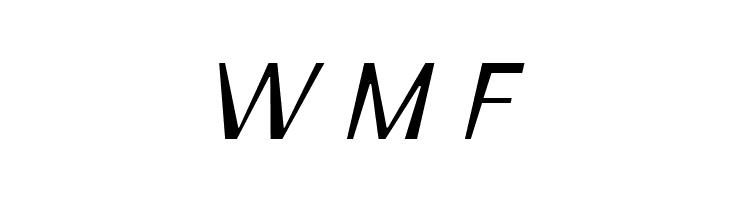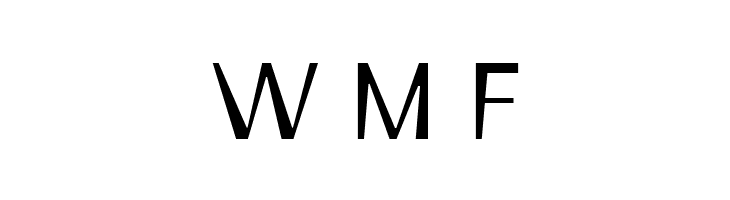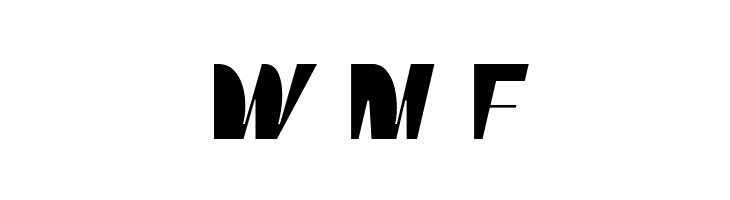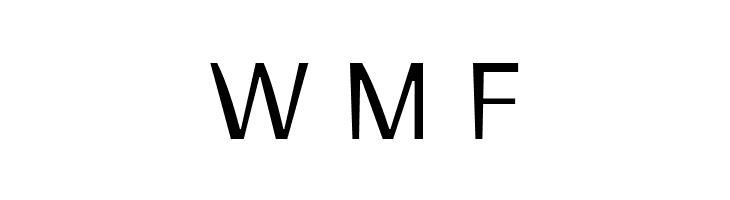
A clean, modern sans-serif font with consistent stroke width and balanced spacing.
A bold, playful font with exaggerated curves and a whimsical style.
A bold, italic sans-serif font with a modern and dynamic style.
A bold, playful font with exaggerated curves and angles, ideal for attention-grabbing designs.
A bold, heavy italic font with a dynamic and modern style.
A modern, italic sans-serif font with a sleek and dynamic style.
A modern, light sans-serif font with a sleek and compact design.
A modern, light, italic sans-serif font with a streamlined and readable design.
A playful and bold sans-serif font with dynamic curves and angles.
A modern, medium-weight italic sans-serif font with a sleek and dynamic style.